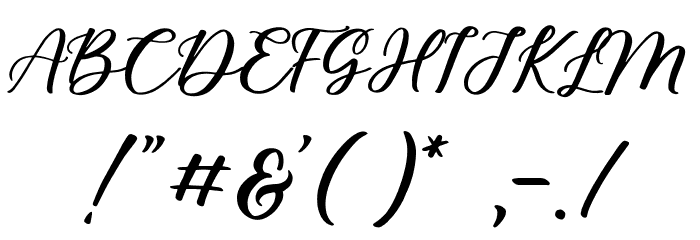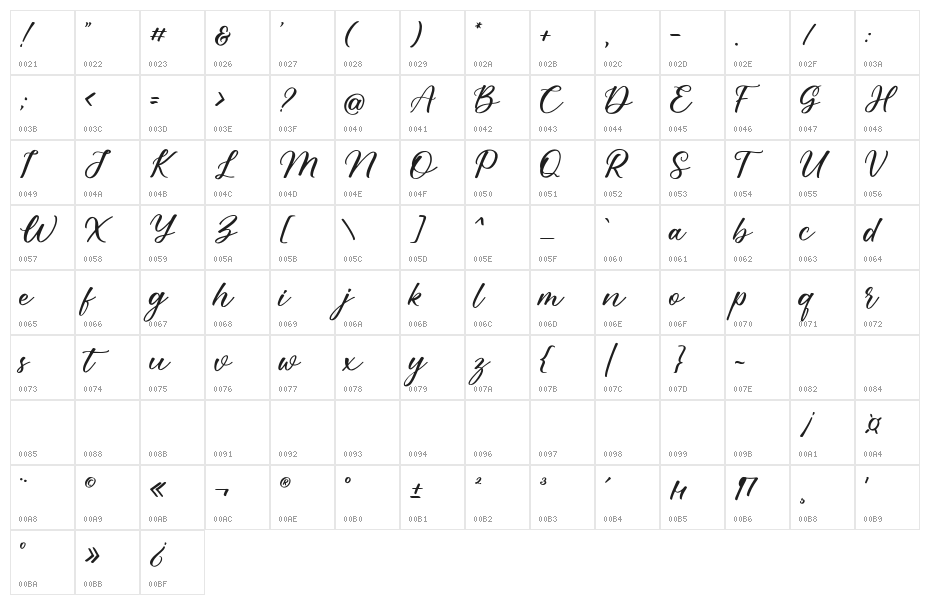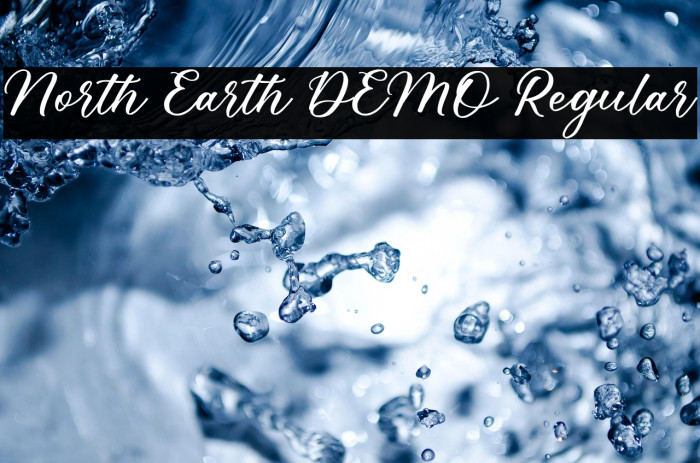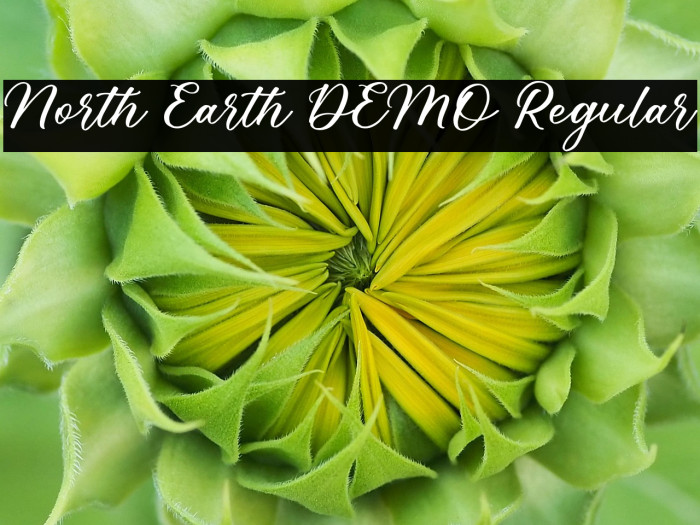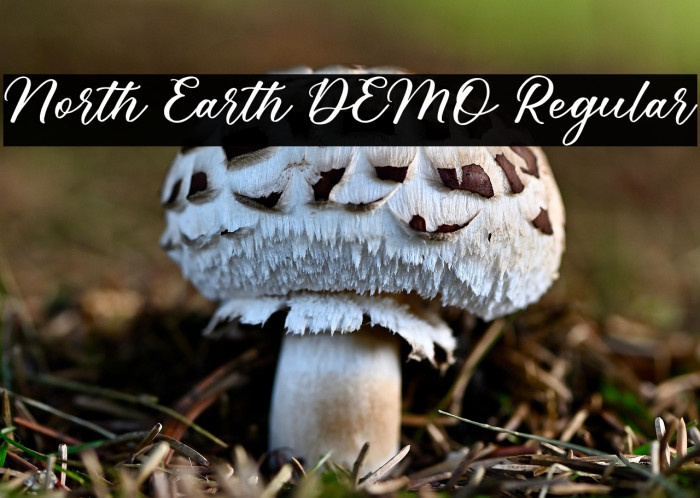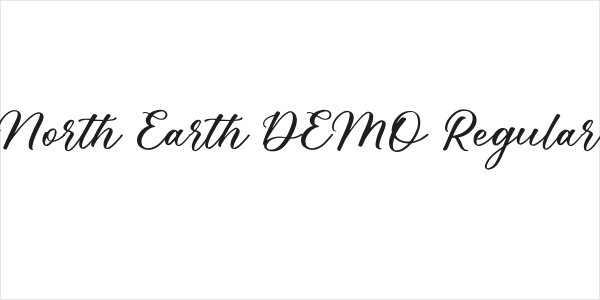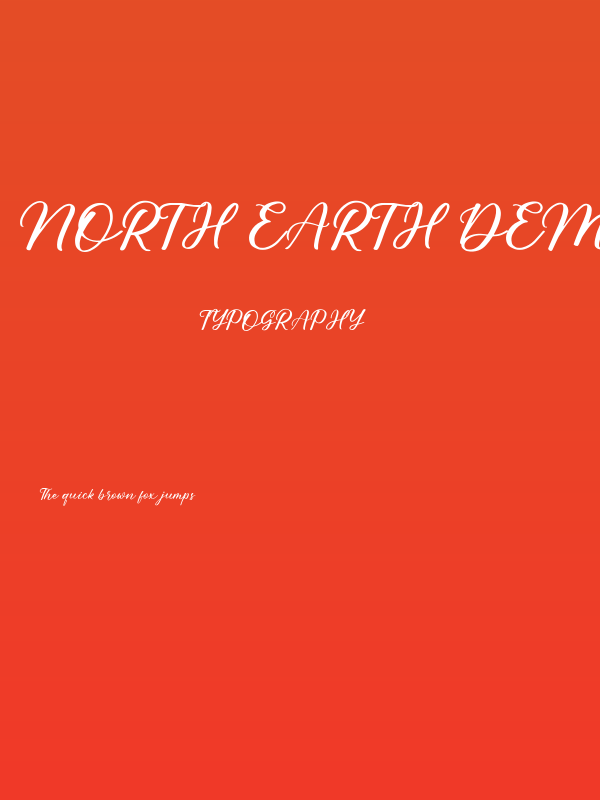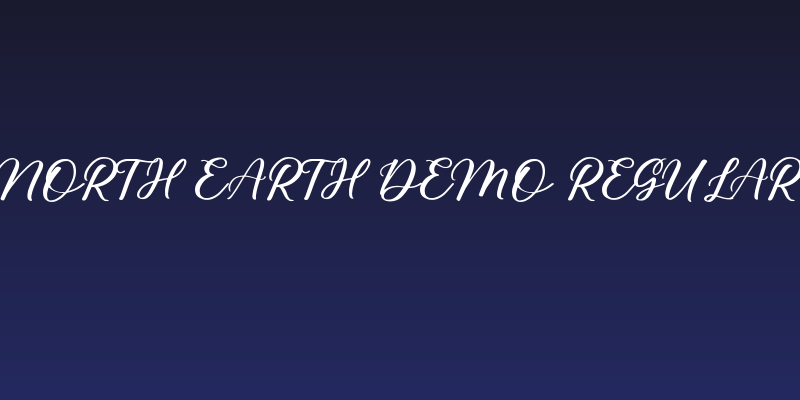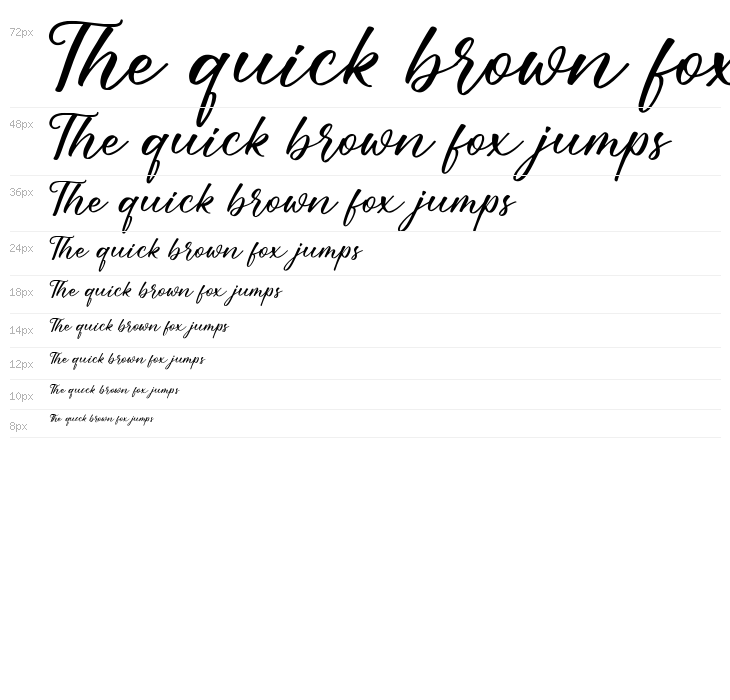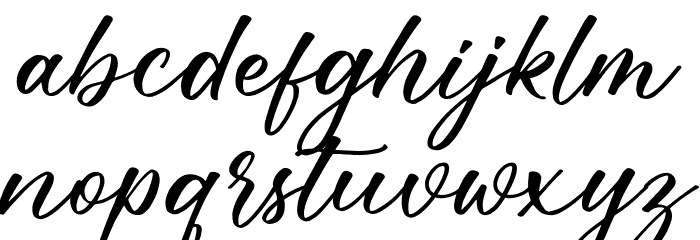
North Earth DEMO Regular Font
North Earth DEMO Regular Description
This font features an elegant and flowing script style, characterized by its smooth, cursive strokes that mimic the fluidity of handwriting. The uppercase letters are slightly more ornate, with graceful loops and swashes, while the lowercase letters maintain a consistent, connected flow. The numerals and special characters are designed to complement the overall script aesthetic, ensuring a cohesive look across all text. This font is perfect for projects that require a touch of sophistication and elegance, such as wedding invitations, greeting cards, or branding materials.